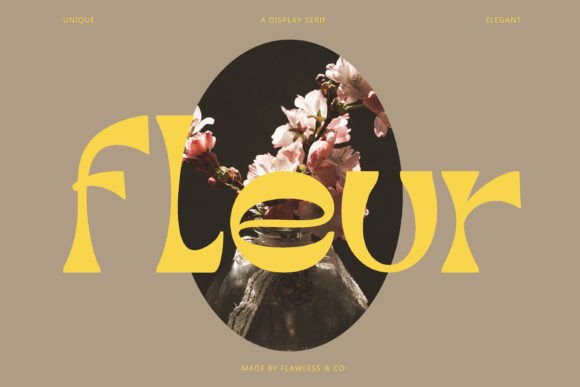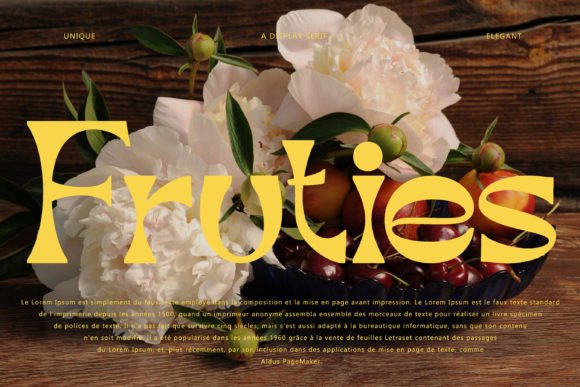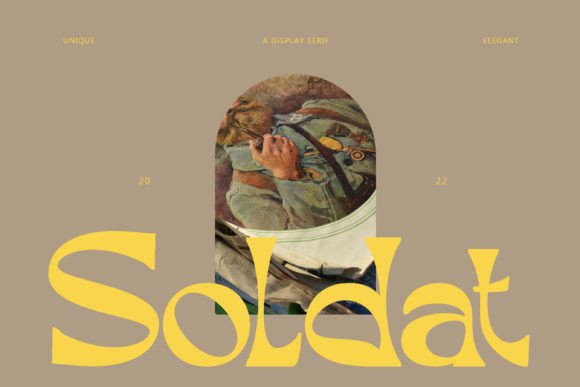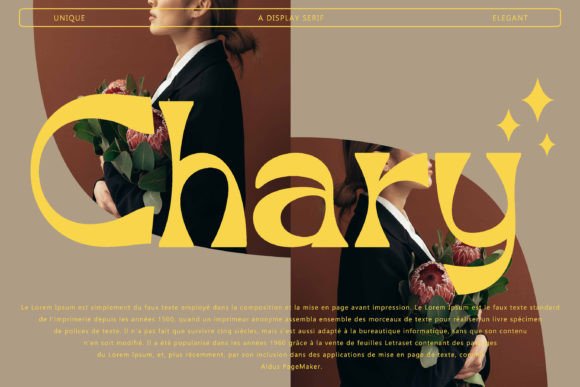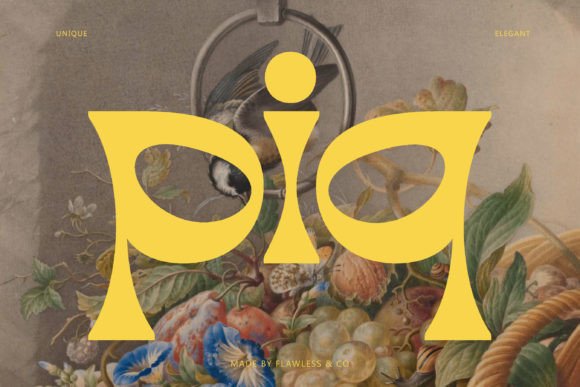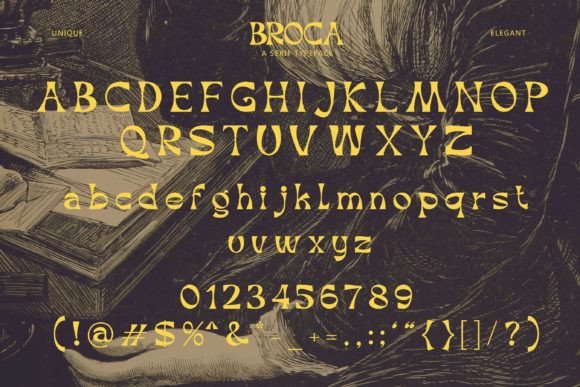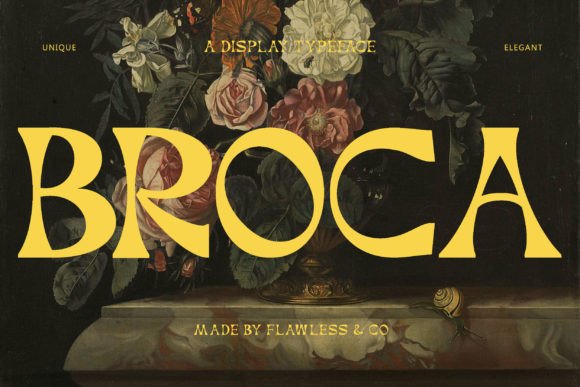
Introducing Broca Font: The Retro Bohemian Display Font You Need
Are you tired of using the same old fonts in your design projects? Do you want to add a touch of uniqueness and personality to your work? Look no further than Broca Font, a stunning retro bohemian display font that’s sure to elevate your designs to the next level. With its distinctive style and versatile charm, Broca is the perfect addition to any project, from branding and advertising to packaging and editorial design.
The Story Behind Broca Font
Broca Font is a carefully crafted typeface that draws inspiration from the free-spirited and artistic vibes of the bohemian lifestyle. Its retro flair is reminiscent of the 1960s and 1970s, an era known for its creative explosion and counterculture movement. The font’s unique character is designed to evoke a sense of freedom, spontaneity, and playfulness, making it perfect for designers and crafters who want to add a dash of personality to their work.
What Makes Broca Font So Special?
So, what sets Broca Font apart from other display fonts on the market? Here are just a few of its standout features:
• Unique character set: Broca Font boasts a distinctive character set that’s full of personality and charm. Its letters are carefully designed to work together in harmony, creating a beautiful and cohesive look that’s sure to turn heads.
• Retro bohemian style: Broca’s retro bohemian style is perfect for designers who want to add a touch of nostalgia and free-spiritedness to their work. Whether you’re creating a vintage-inspired branding campaign or a bohemian-themed editorial spread, Broca Font is the perfect choice.
• Versatile: Despite its bold and eye-catching style, Broca Font is surprisingly versatile. It can be used in a variety of contexts, from large display headings to smaller body text, making it a great addition to any design project.
How to Use Broca Font in Your Design Projects
Ready to add Broca Font to your design arsenal? Here are a few tips on how to use it effectively in your projects:
• Pair it with neutrals: Broca Font’s bold style can be overwhelming if not paired with the right complementary fonts. Try pairing it with neutral fonts like Arial, Helvetica, or Open Sans to create a beautiful contrast.
• Use it as a statement piece: Broca Font is designed to make a statement, so don’t be afraid to use it as a focal point in your design. Whether you’re creating a bold headline or a eye-catching logo, Broca Font is sure to turn heads.
• Experiment with colors: Broca Font looks great in a variety of colors, from bold brights to muted earth tones. Experiment with different color combinations to find the perfect look for your project.
Broca Font in the World of Design
Broca Font is more than just a font – it’s a design statement. It’s a way to express your creativity and individuality, and to add a touch of personality to your work. Whether you’re a seasoned designer or a crafty DIY enthusiast, Broca Font is the perfect tool to help you stand out from the crowd.
In the world of design, fonts are often seen as a small but crucial element of a larger project. But with Broca Font, you can create something truly special. Imagine using Broca Font to:
• Create a stunning brand identity: Broca Font’s unique character set and retro bohemian style make it perfect for branding and logo design. Use it to create a memorable and eye-catching brand identity that sets you apart from the competition.
• Design a beautiful editorial spread: Broca Font’s versatility and charm make it perfect for editorial design. Use it to create a stunning magazine spread, complete with bold headlines and beautiful body text.
• Craft a one-of-a-kind packaging design: Broca Font’s bold style and playful charm make it perfect for packaging design. Use it to create a unique and eye-catching package that stands out on store shelves.
Font Name Broca Font
Author Flawless And Co
In conclusion, Broca Font is a game-changing display font that’s sure to elevate your design projects to the next level. With its unique character set, retro bohemian style, and versatility, Broca Font is the perfect addition to any design arsenal. Whether you’re a seasoned designer or a crafty DIY enthusiast, Broca Font is the perfect tool to help you express your creativity and individuality. So why wait? Add Broca Font to your projects today and see the amazing outcome for yourself!